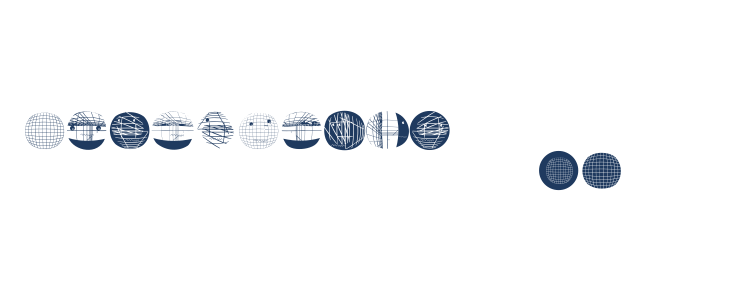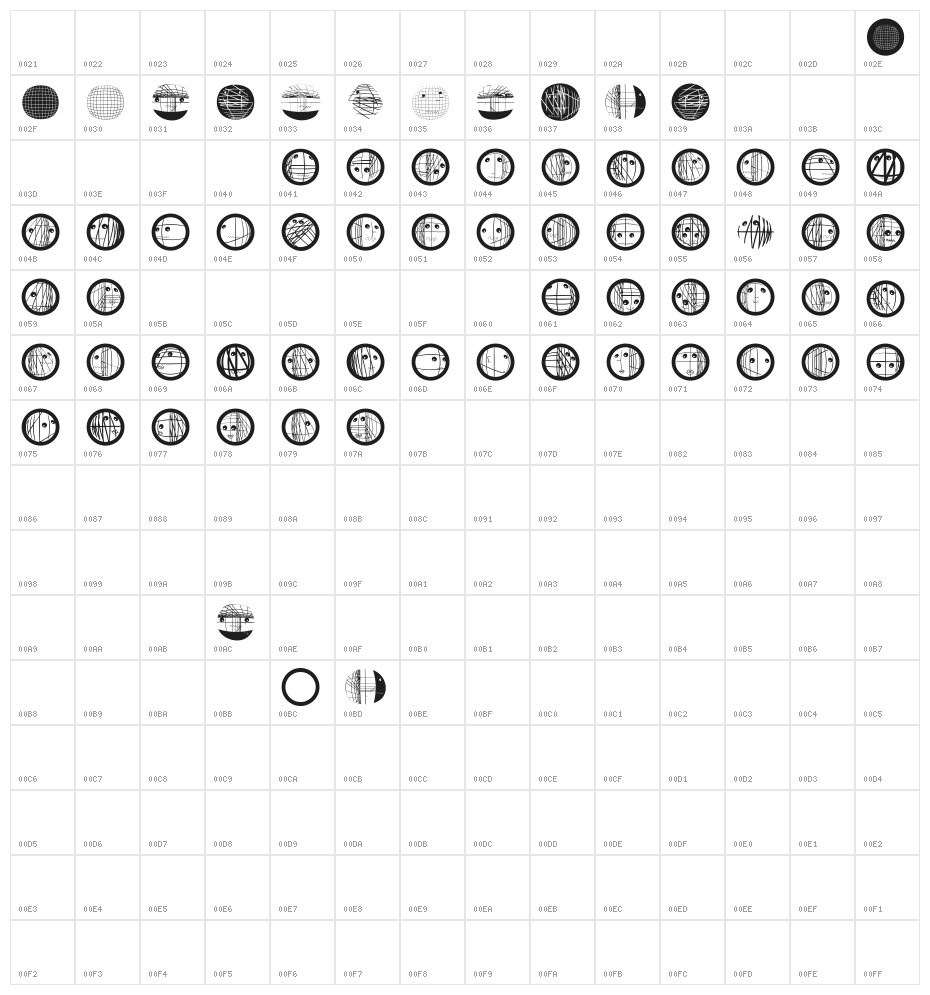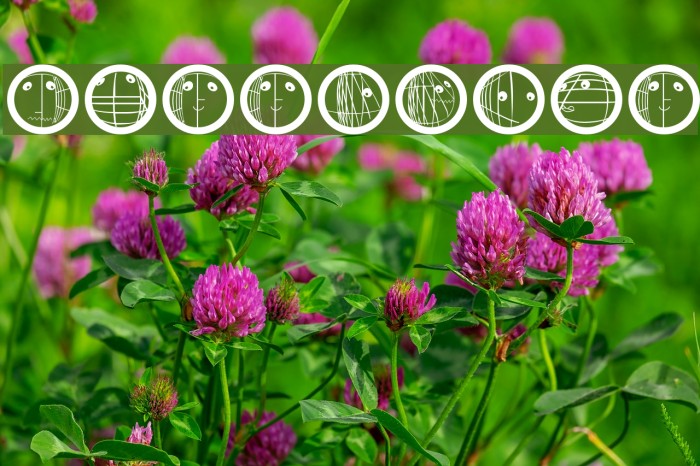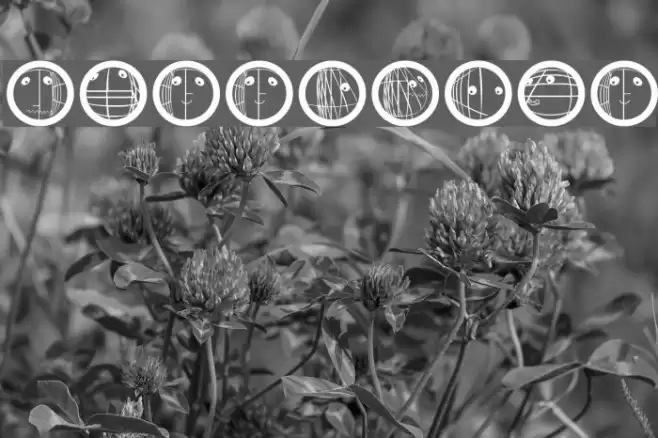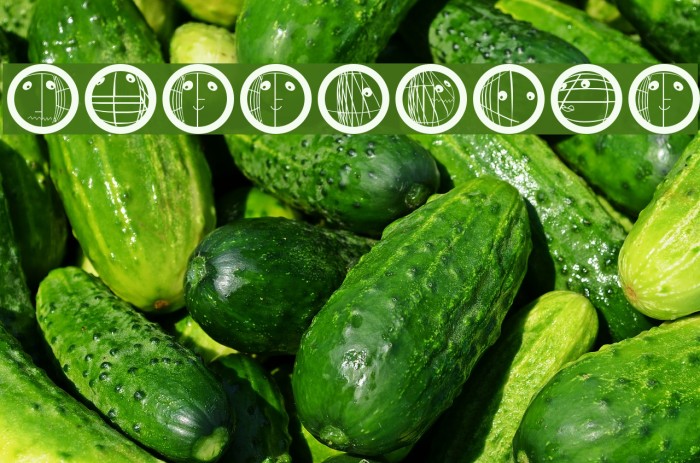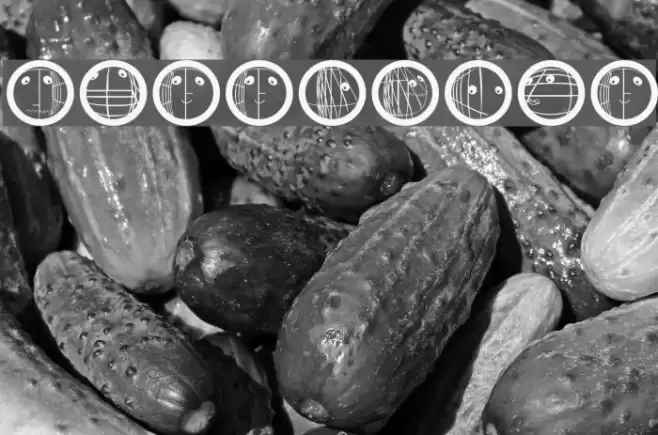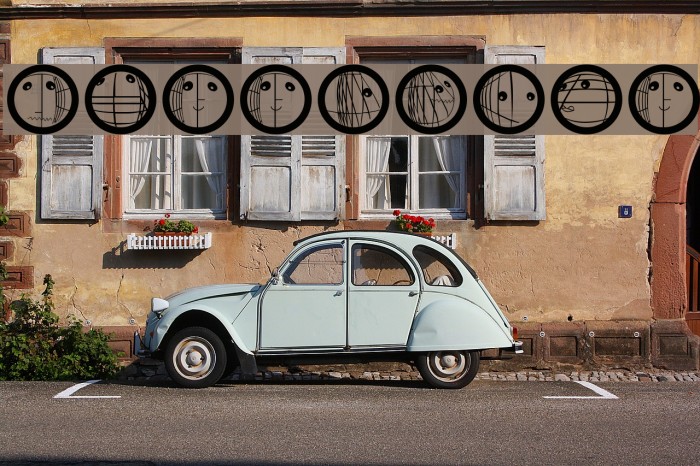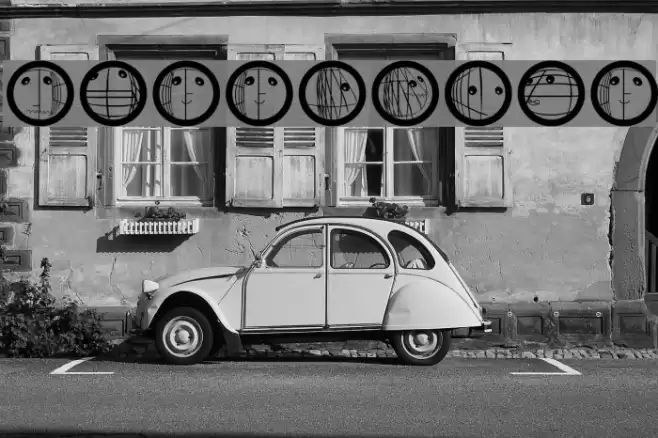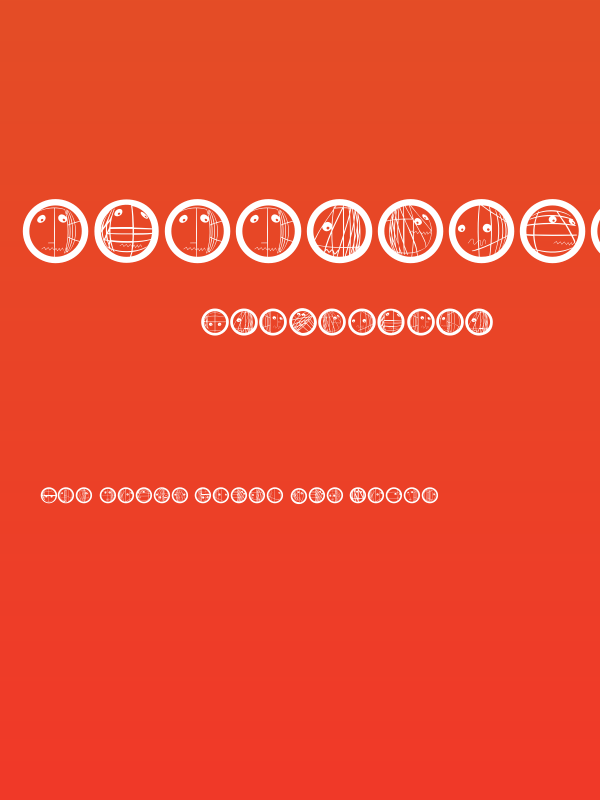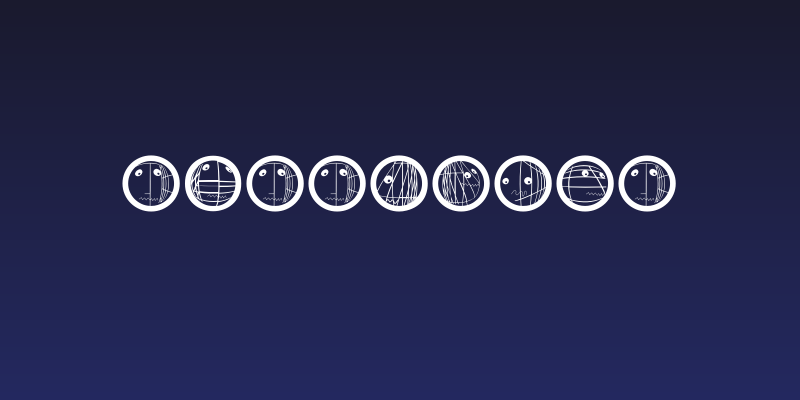
DaddyGrid Font
DaddyGrid Description
This design features a series of circular symbols, each containing unique abstract line patterns and dots. The symbols are enclosed within bold black circles, creating a striking contrast with the intricate, thin lines inside. The patterns vary from grid-like structures to more chaotic, scribble-like designs, offering a diverse visual experience. The overall aesthetic is modern and artistic, with a focus on abstract expression. The symbols do not correspond to traditional alphanumeric characters, making them more suitable for decorative purposes rather than functional typography.
Overall StyleModern, Abstract
Use CaseLogos, Decorative elements
Proposed ProjectsIdeal for artistic projects, logo design, or decorative elements in graphic design due to its abstract and modern style.